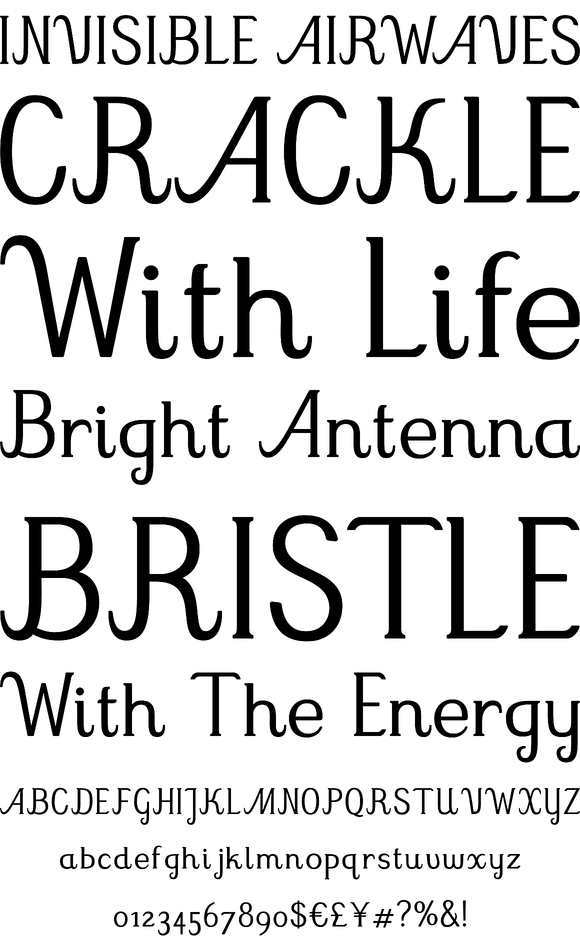
Mrs Green
Mrs Green is a great typeface for short texts, invitations, headlines, logotypes and advertising. We’ve started with a heavy capital G and A. At the beginning it was supposed to be just one fat style (still our favorite). But after a few months we’ve ended up with a family of 20 styles.It has contextual alternates, fractions, four types of figures (old style, lining, superior and inferior), ordinals and a case feature.